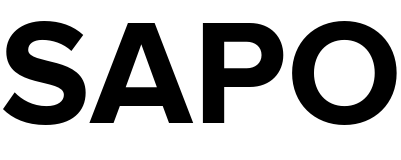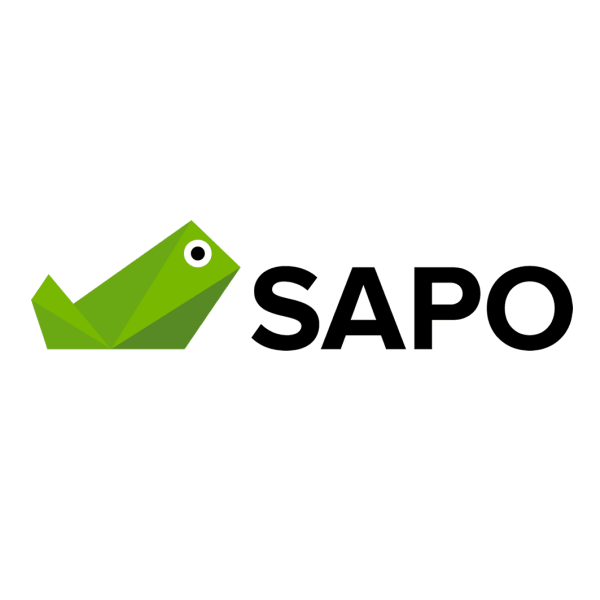
SAPO Font
In 2014, SAPO unveiled its new logo that showcases a toad and the company name in a sans serif font called Proxima Nova Bold. The typeface, created by American designer Mark Simonson, blends geometric shapes with humanistic proportions. For additional information about Proxima Nova, click here.